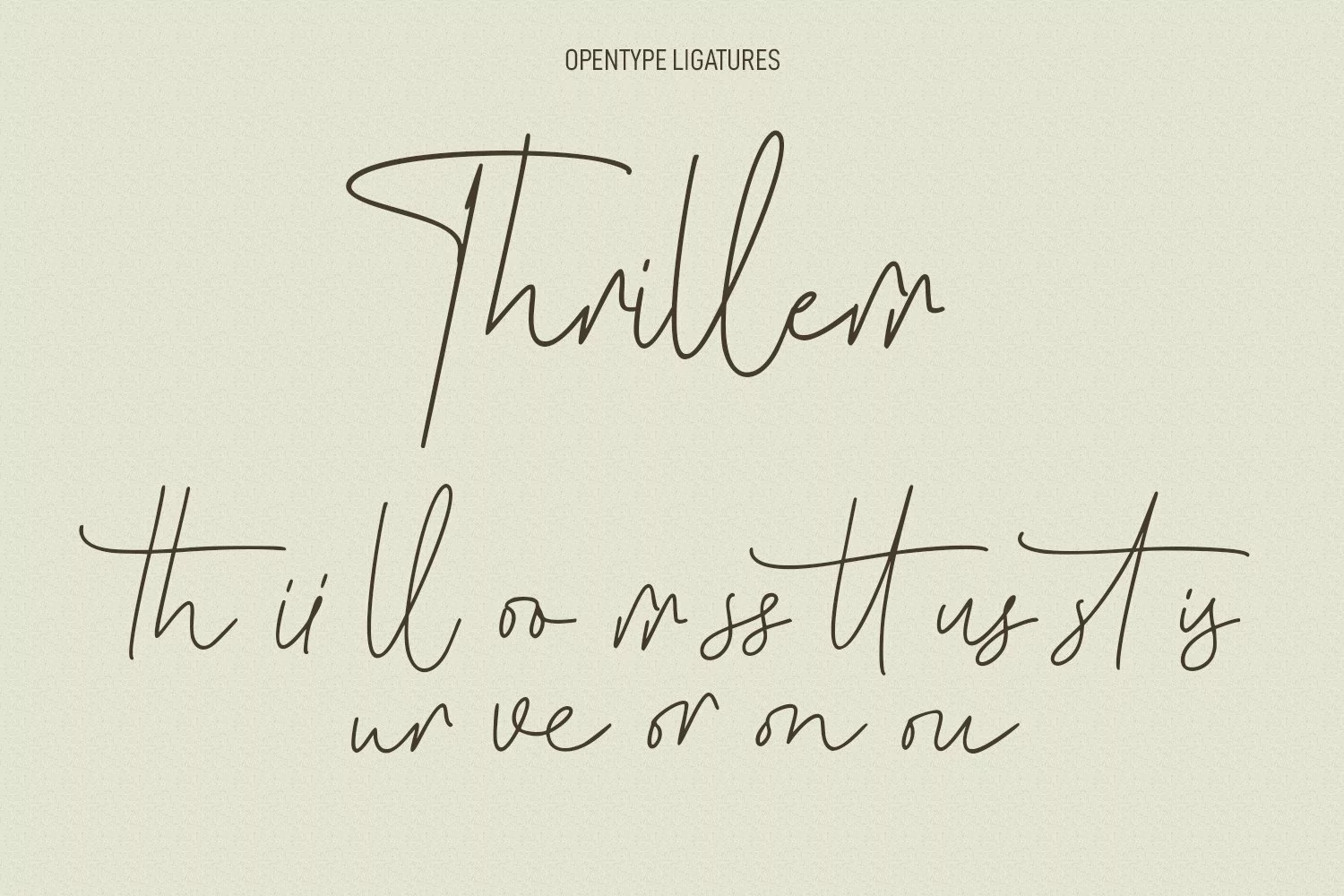
Brad Rowland is a fancy handwritten script font. With medium contrast stroke, fun character with a bit of ligatures and alternates. To give you an extra creative work. Brad Rowland font support multilingual more than 100+ language. This font is good for logo design, Social media, Movie Titles, Books Titles, a short text even a long text letter and good for your secondary text font with sans or serif. Make a stunning work with Brad Rowland font.
Brad Rowland